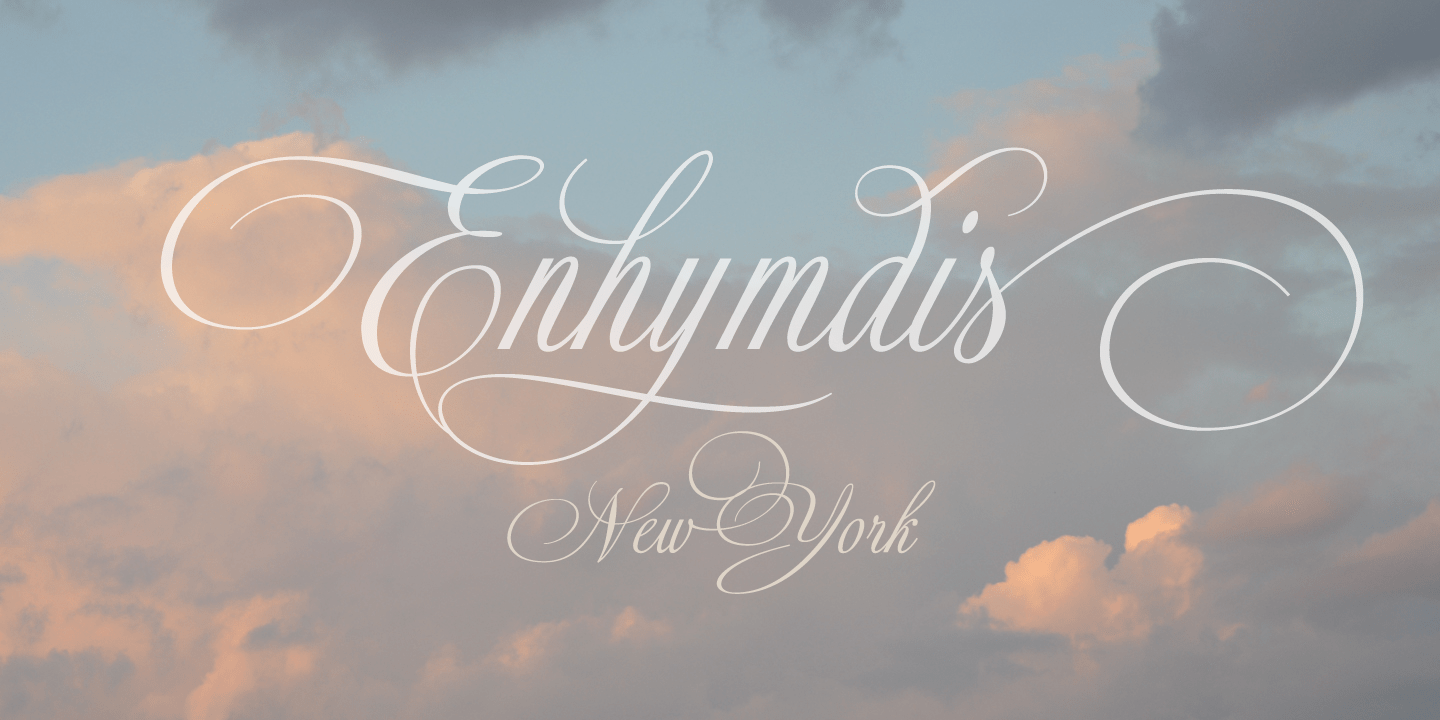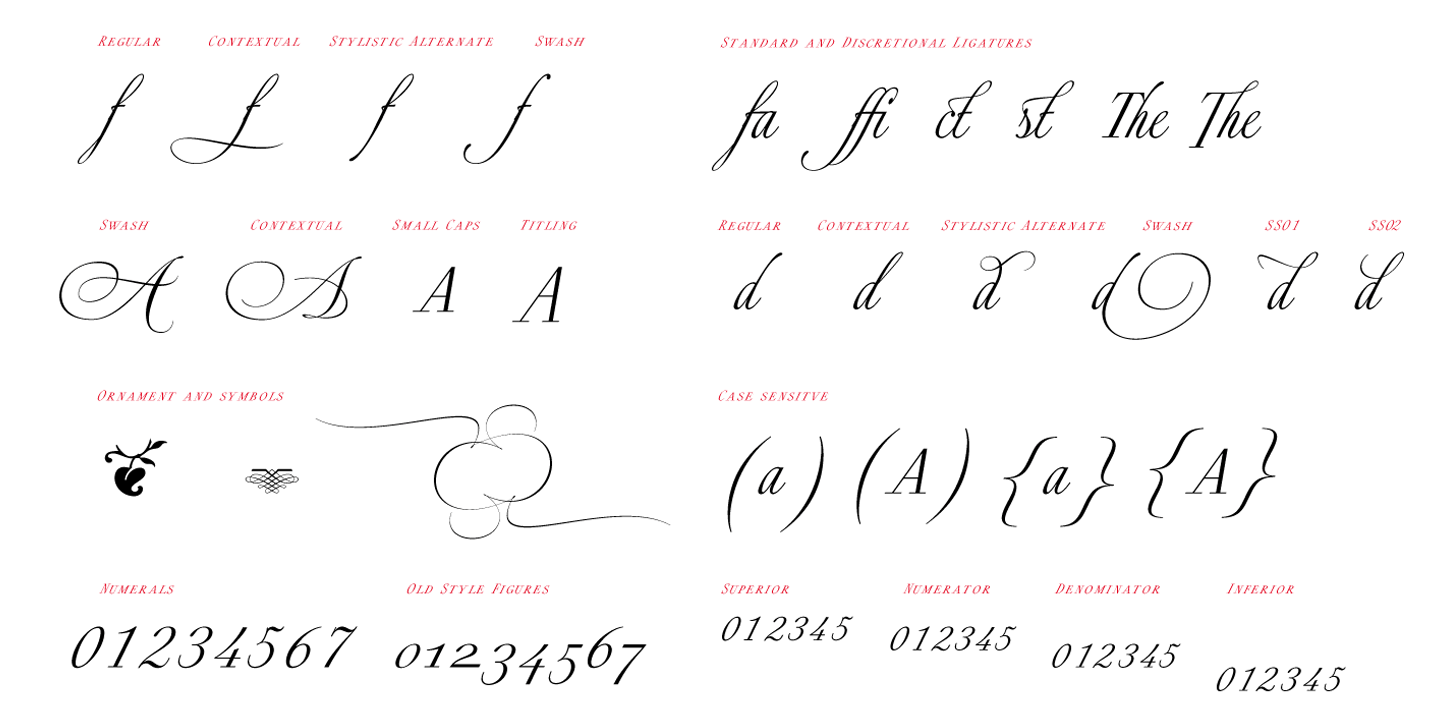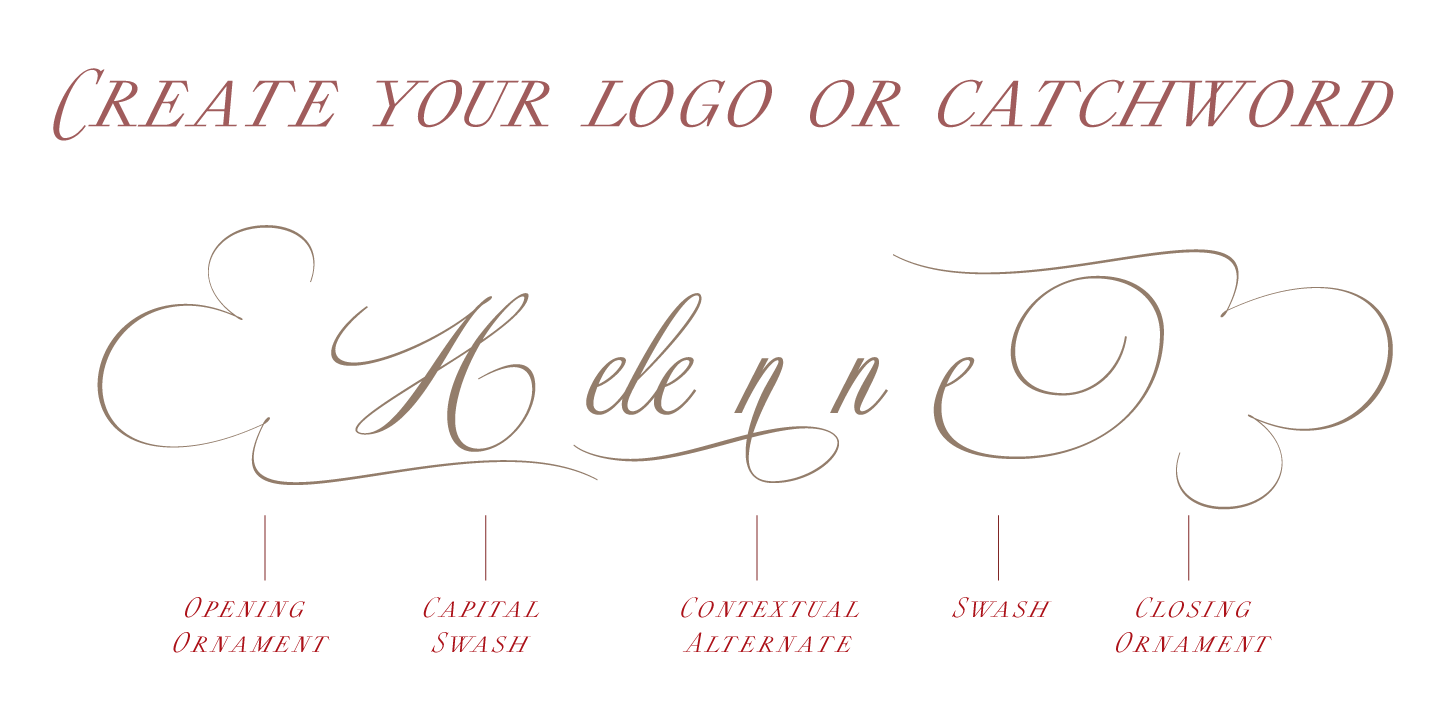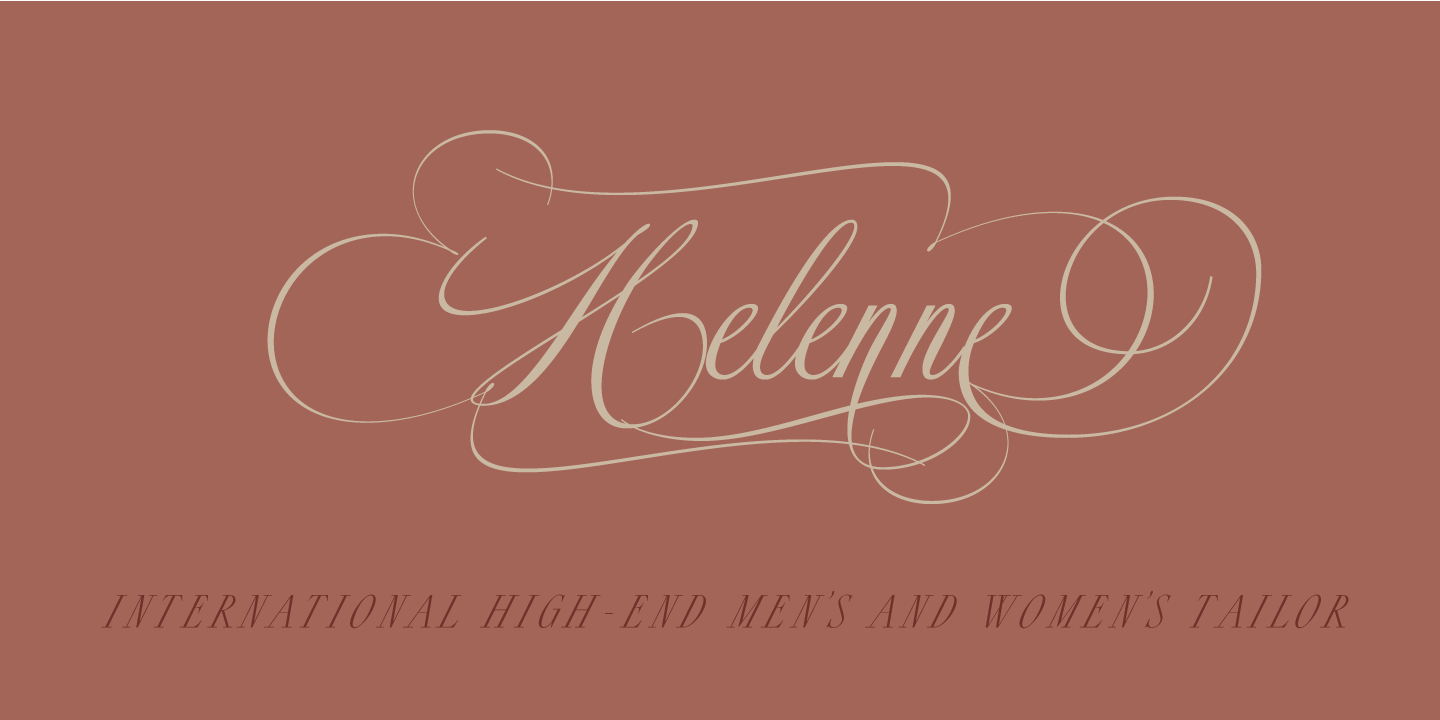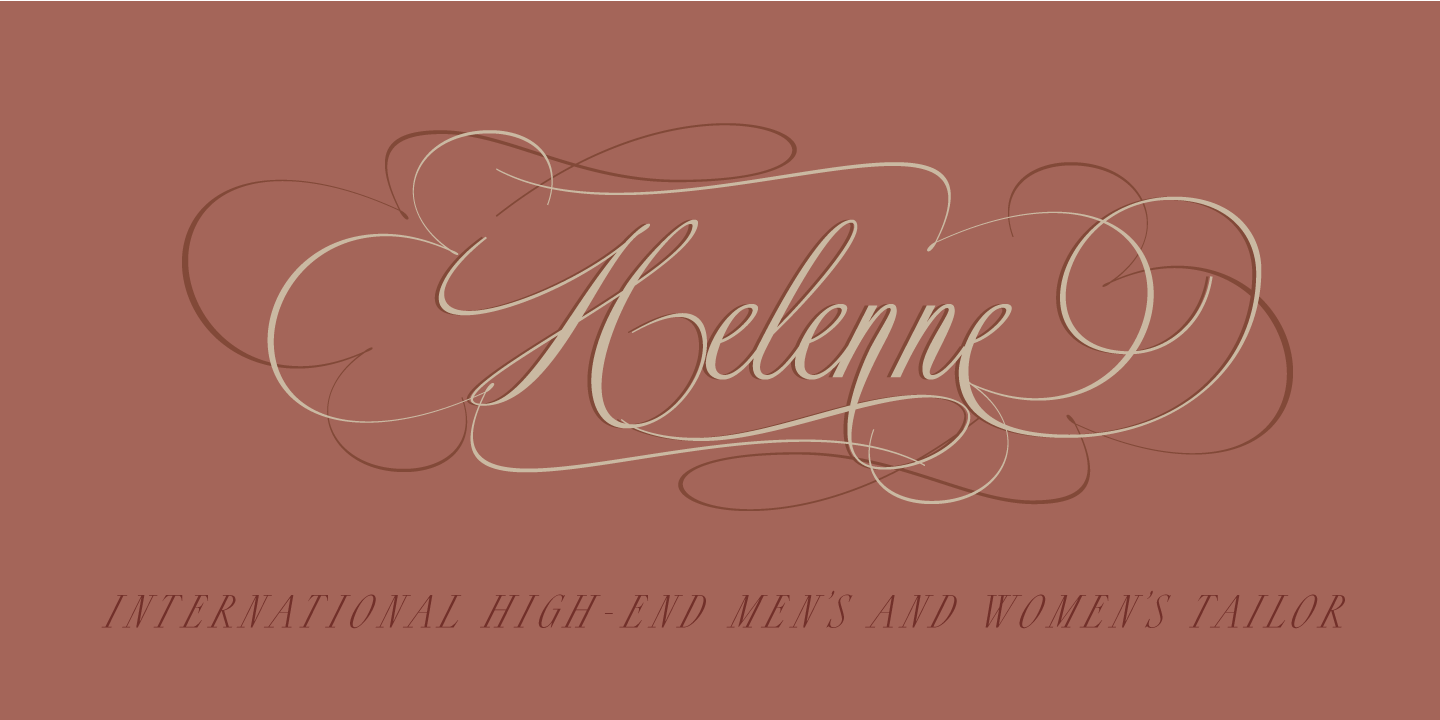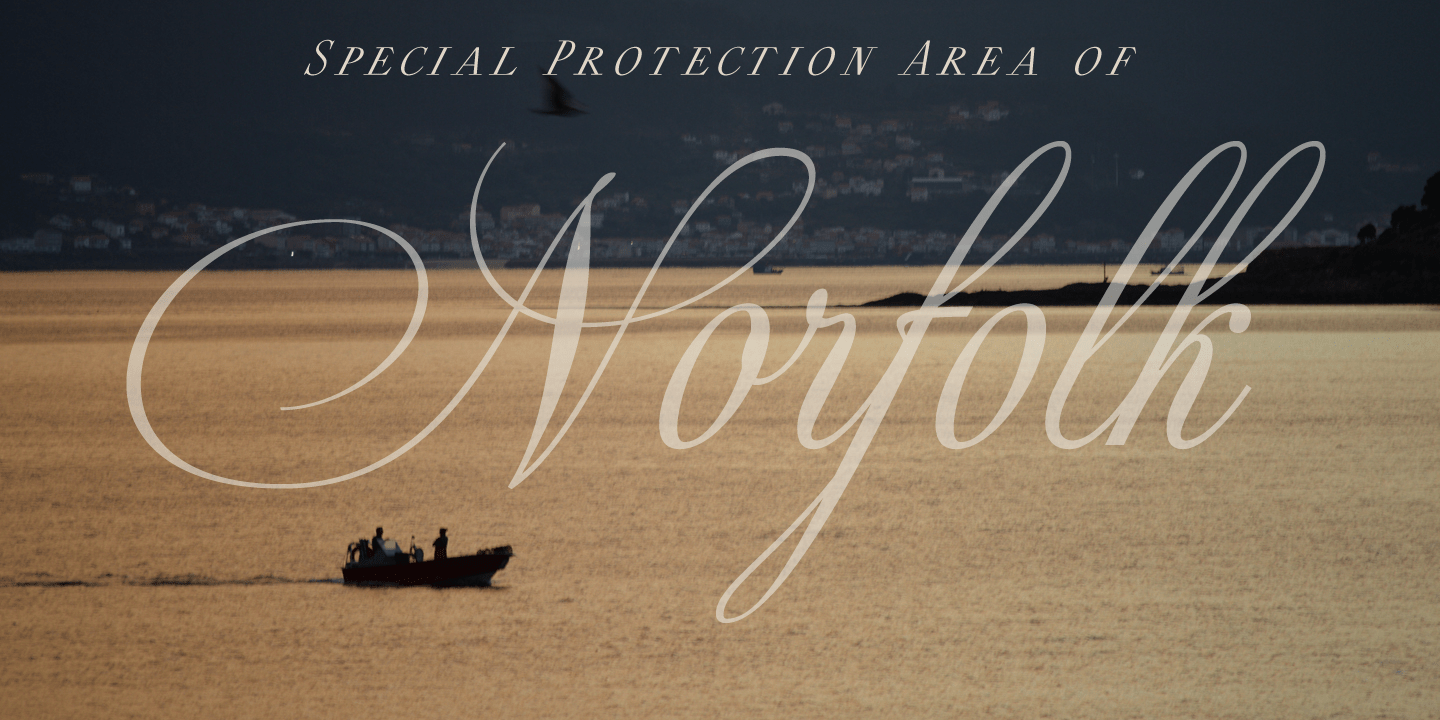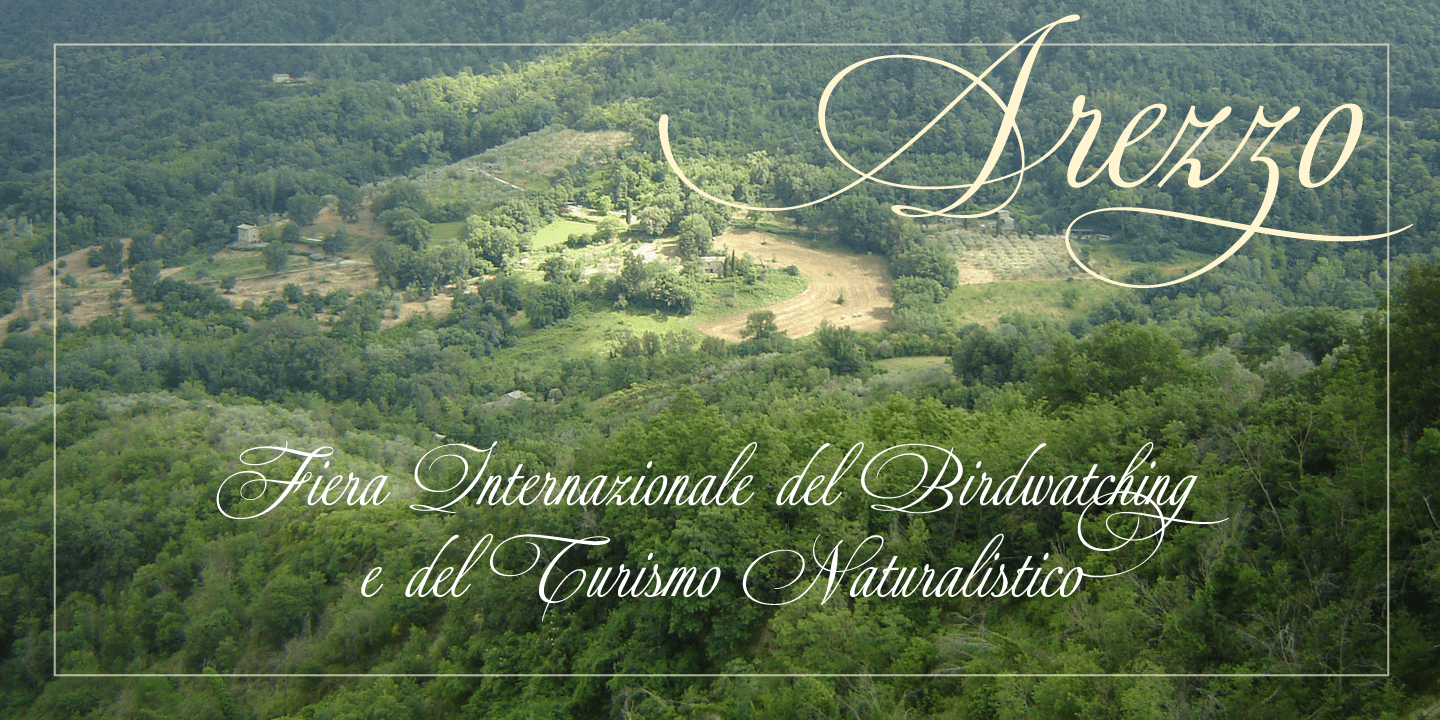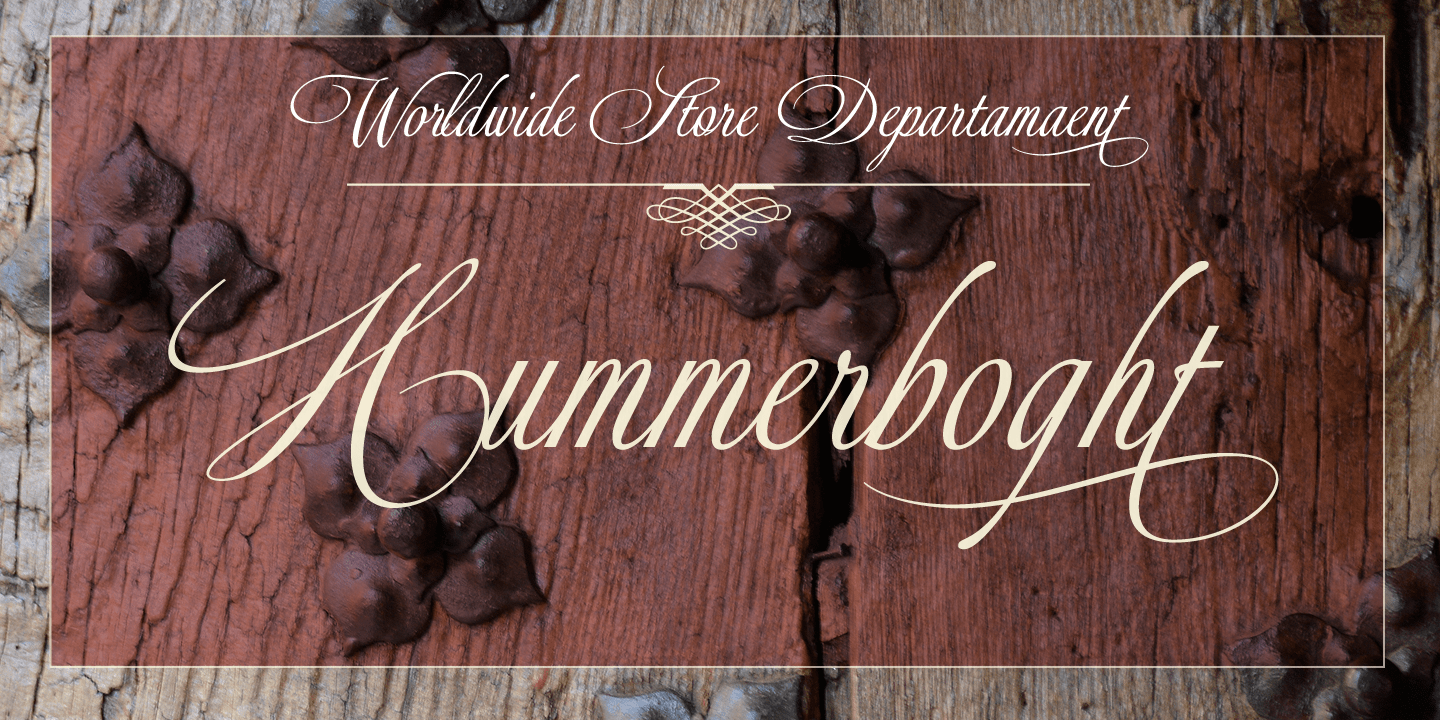
Daevon
Font Family by Eurotypo
Daevon is a formal script with a distinctly retro, handwritten feel, drawing on 1940s, 1950s, and 1960s styling. Its flowing letterforms create an elegant, nostalgic impression that feels polished without losing its personal touch.
That vintage character makes it a strong choice for branding, packaging, signage, invitations, and other display work that needs warmth and period charm. If you’re looking for a script that leans historical rather than casual, this design brings a graceful, classic voice to headlines and standout typography.